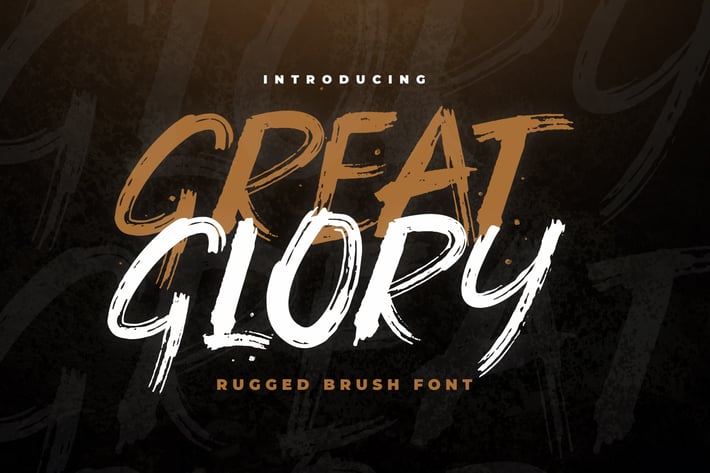
Great Glory Brush Font
Introducing the Great Glory Brush font
A handmade brush font with a weathered look and a grunge vibe. It suits perfectly for all kinds of headlines, posters, t-shirt designs, packaging designs, handwritten quotes and so much more. Basically it fits to anything that requires you to add a little grungy and rustic character to your designs.
The font comes with a full set of special characters and also a multilingual support that covers most of the special glyphs.